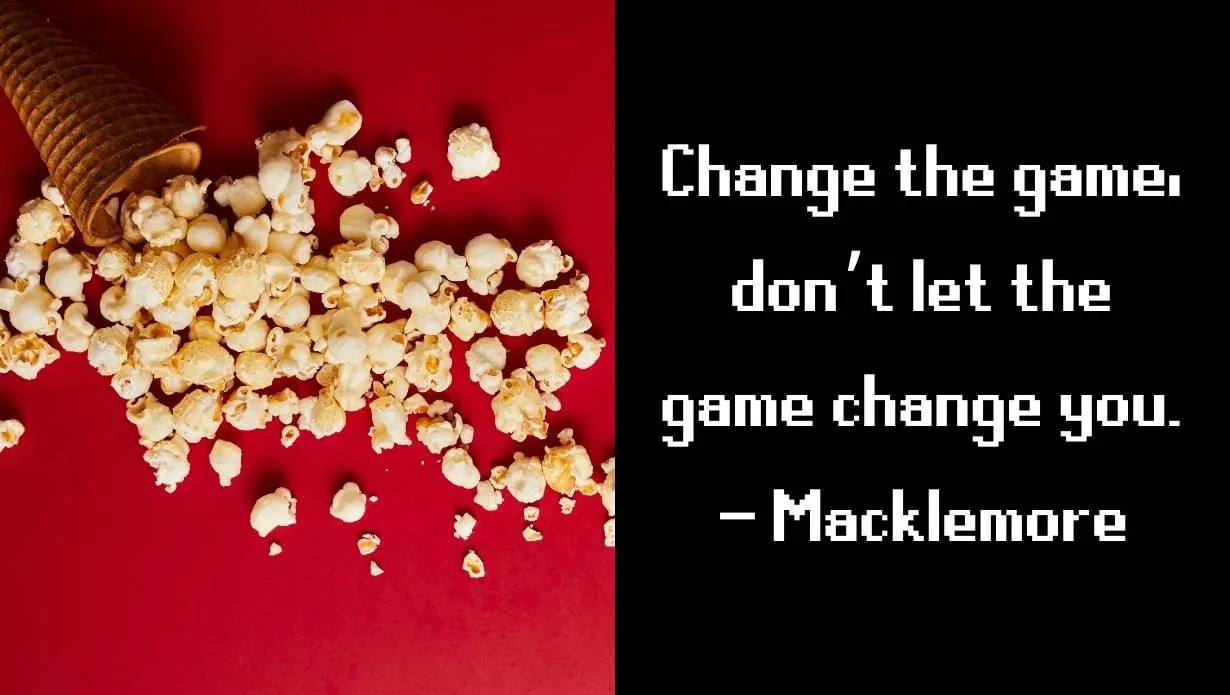
Here, we are going to introduce a modern and classic typeface that is known by the name Runescape Font. It is a video game font that was designed for various gaming projects. This stunning typeface was developed by Nathan P. It belongs to the display font family.
In the year 2001, this particular typeface was first seen in the video game Runescape. After that, it became widely popular among the masses and people started using it for various purposes. For more advanced uses, use its alternative transformers Font.